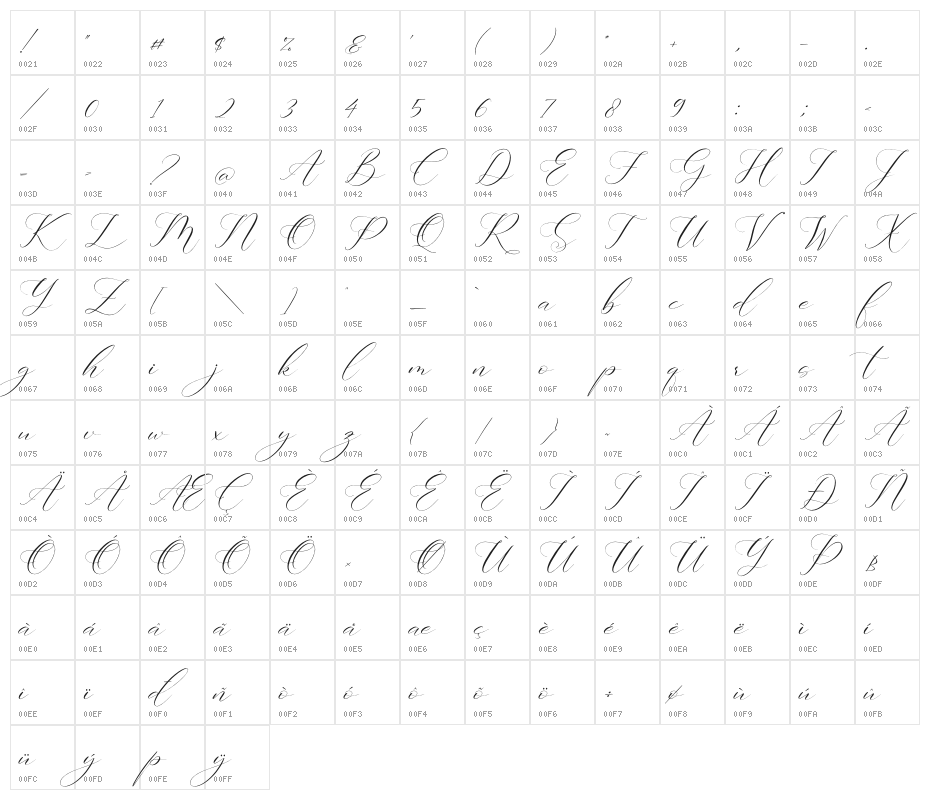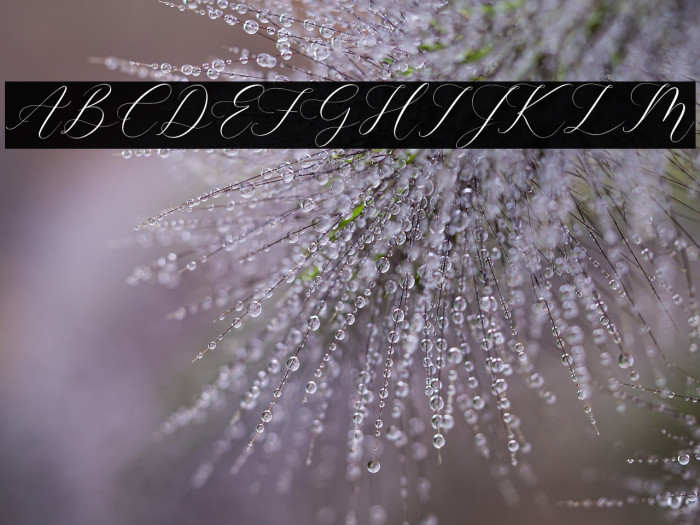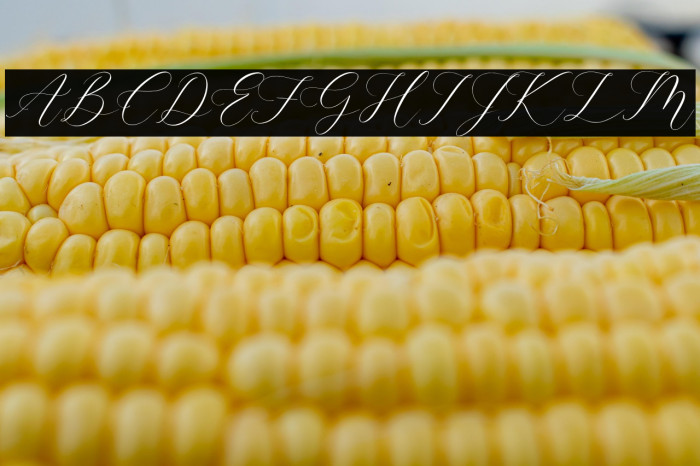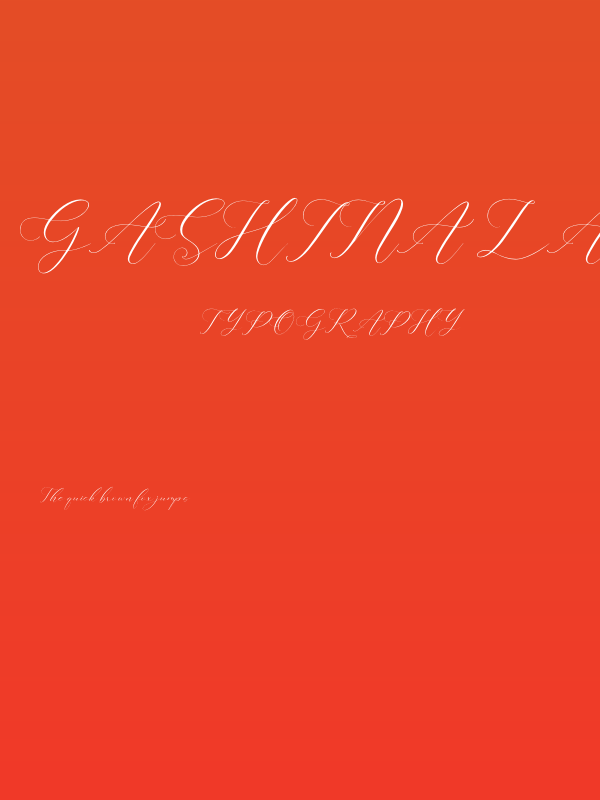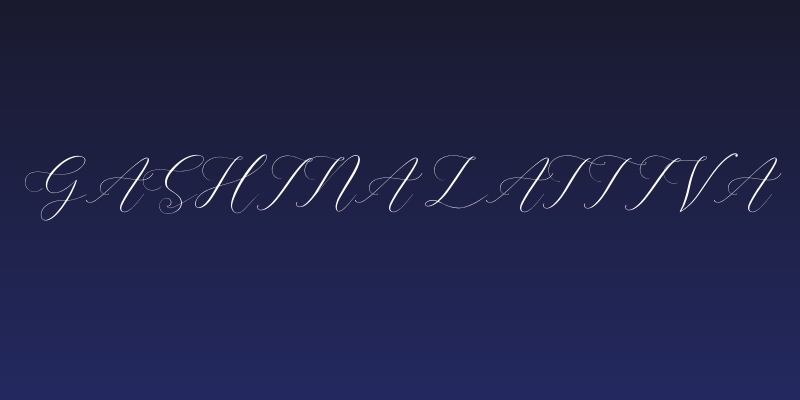
Gashina Lattiva Font
Gashina Lattiva Description
This font exhibits a graceful and elegant script style, characterized by its flowing, cursive letterforms and delicate strokes. The uppercase letters are slightly more restrained, maintaining a sophisticated appearance, while the lowercase letters feature elaborate loops and swashes, adding a sense of fluidity and movement. The numerals are consistent with the overall script style, maintaining the same elegant curves. Special characters are designed to complement the alphabet, ensuring a cohesive look across all text. This font's high contrast in stroke thickness enhances its readability while maintaining an artistic flair.